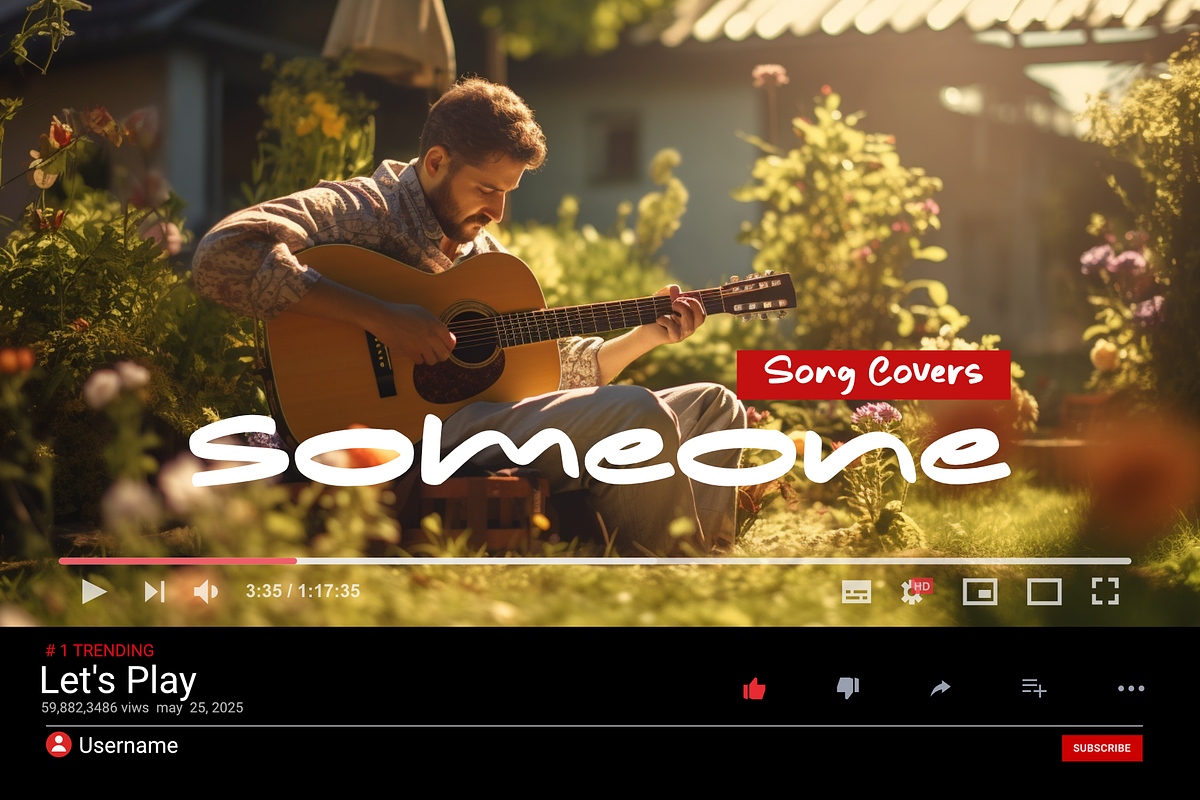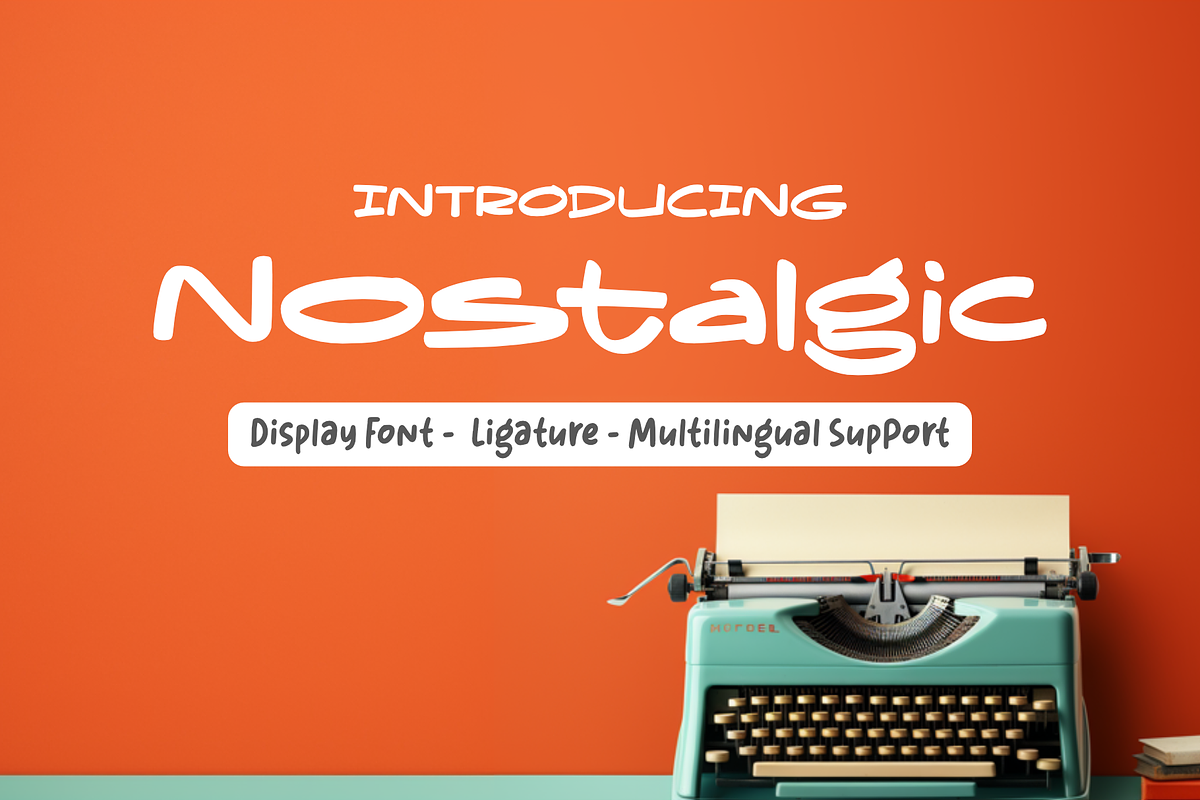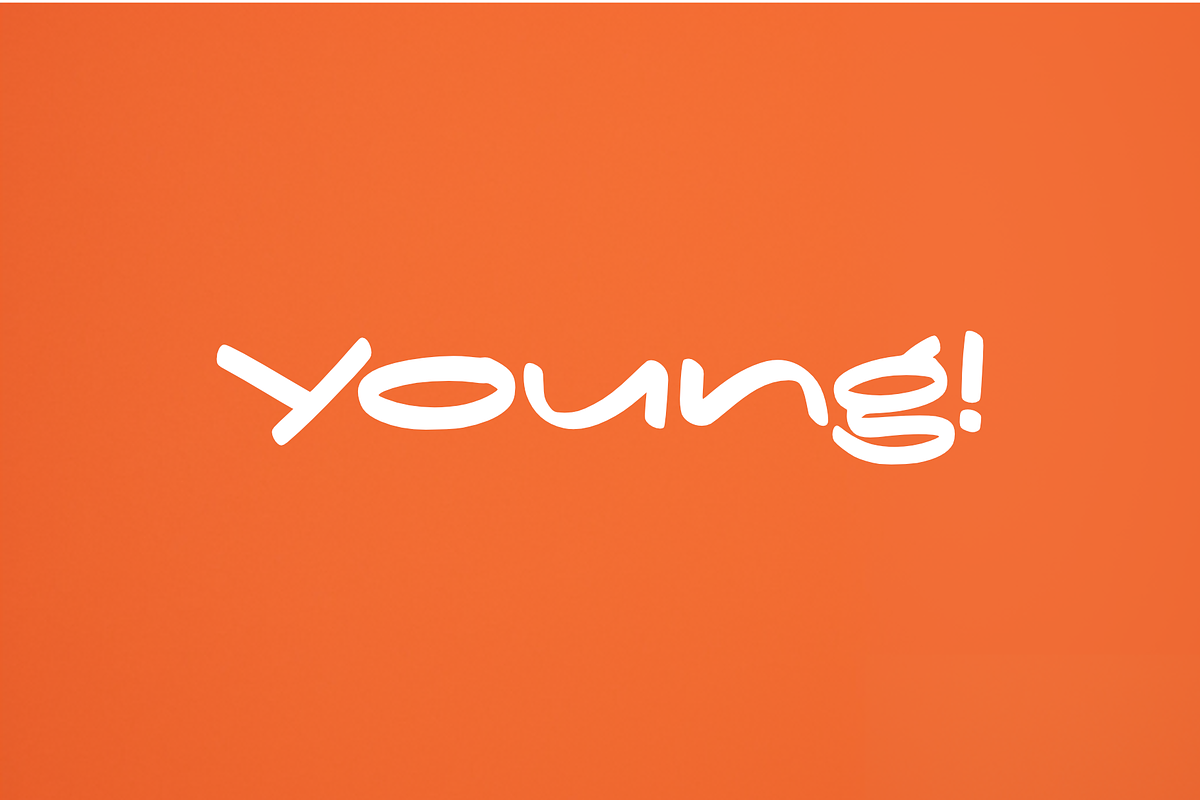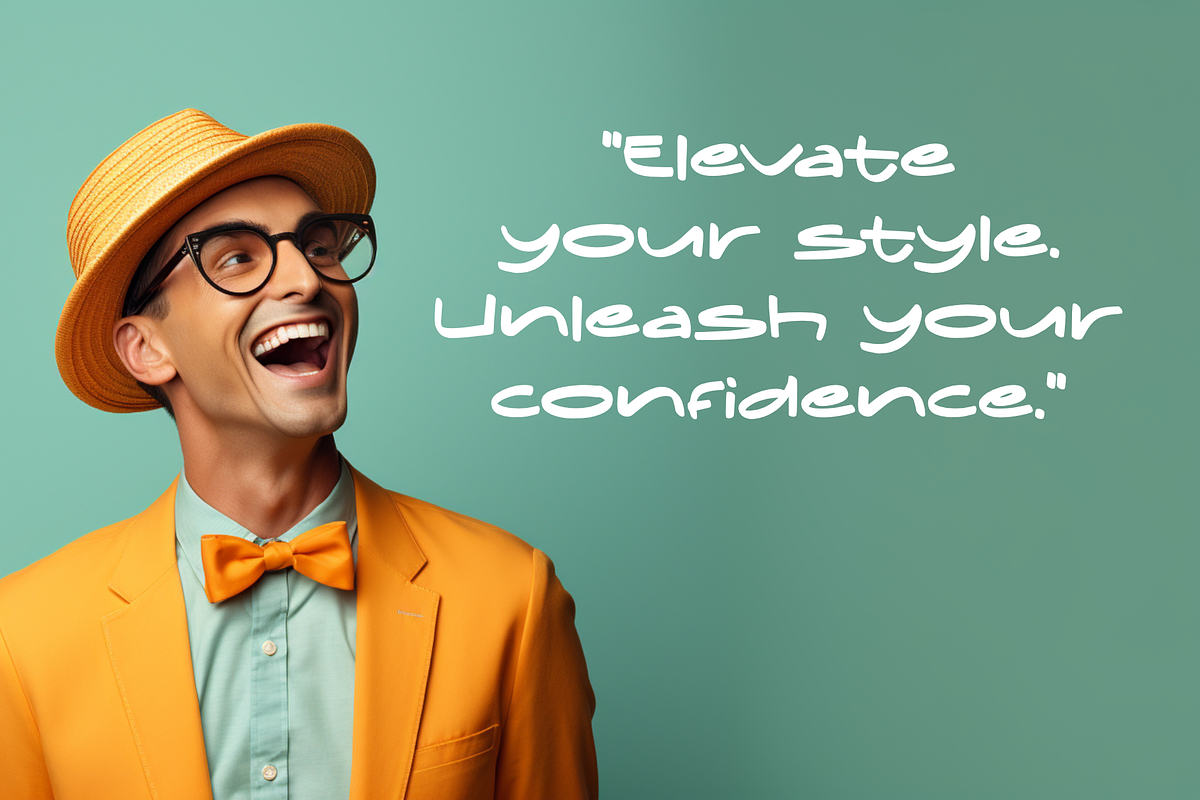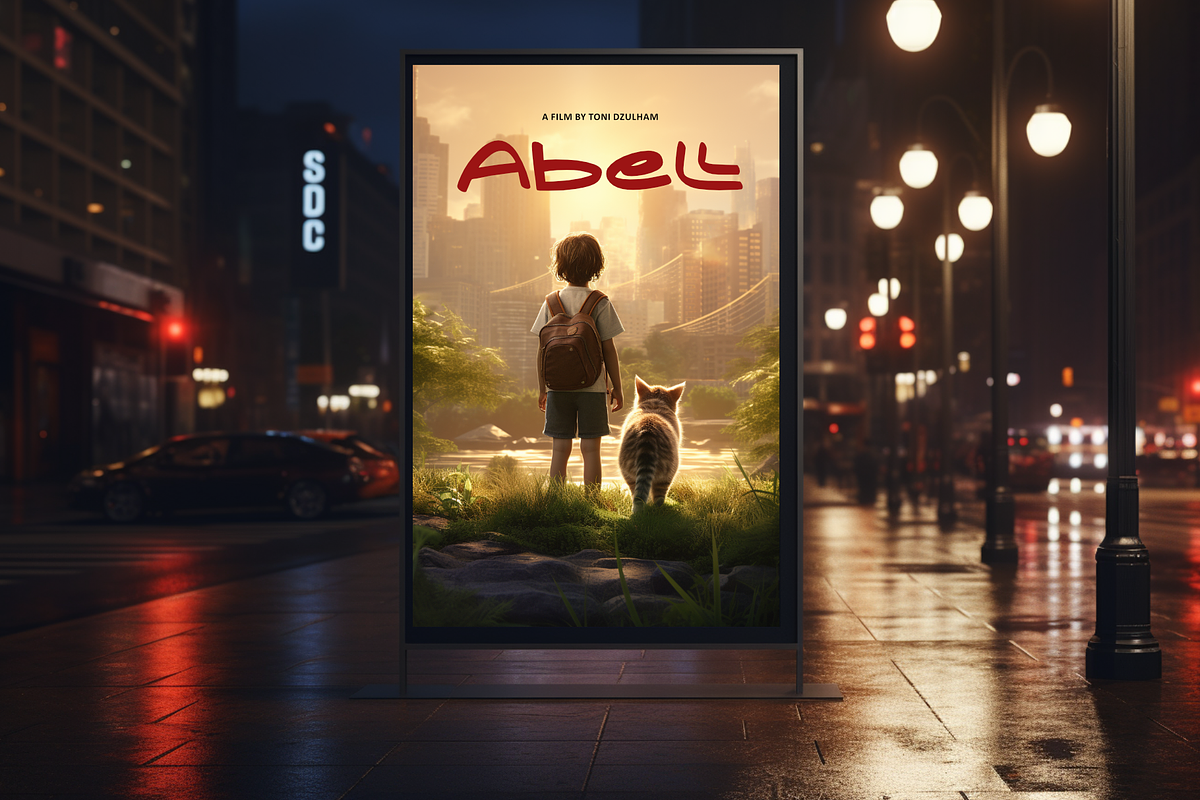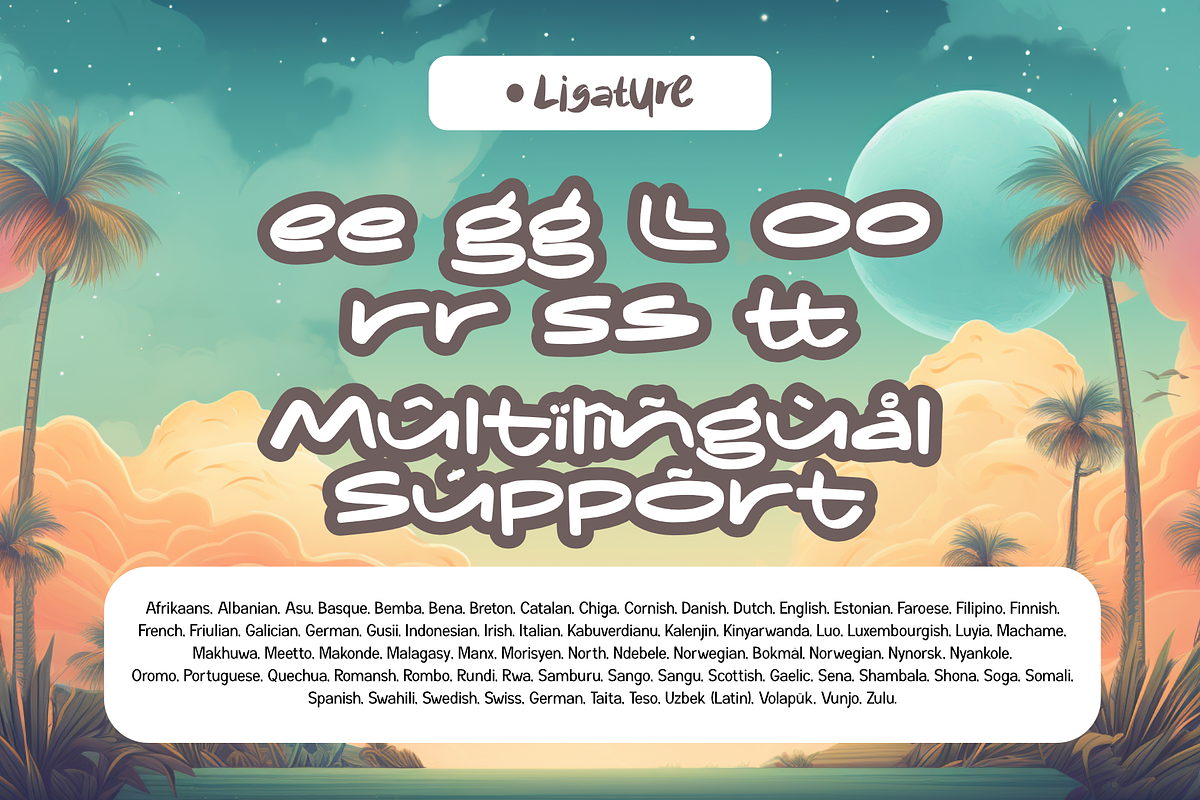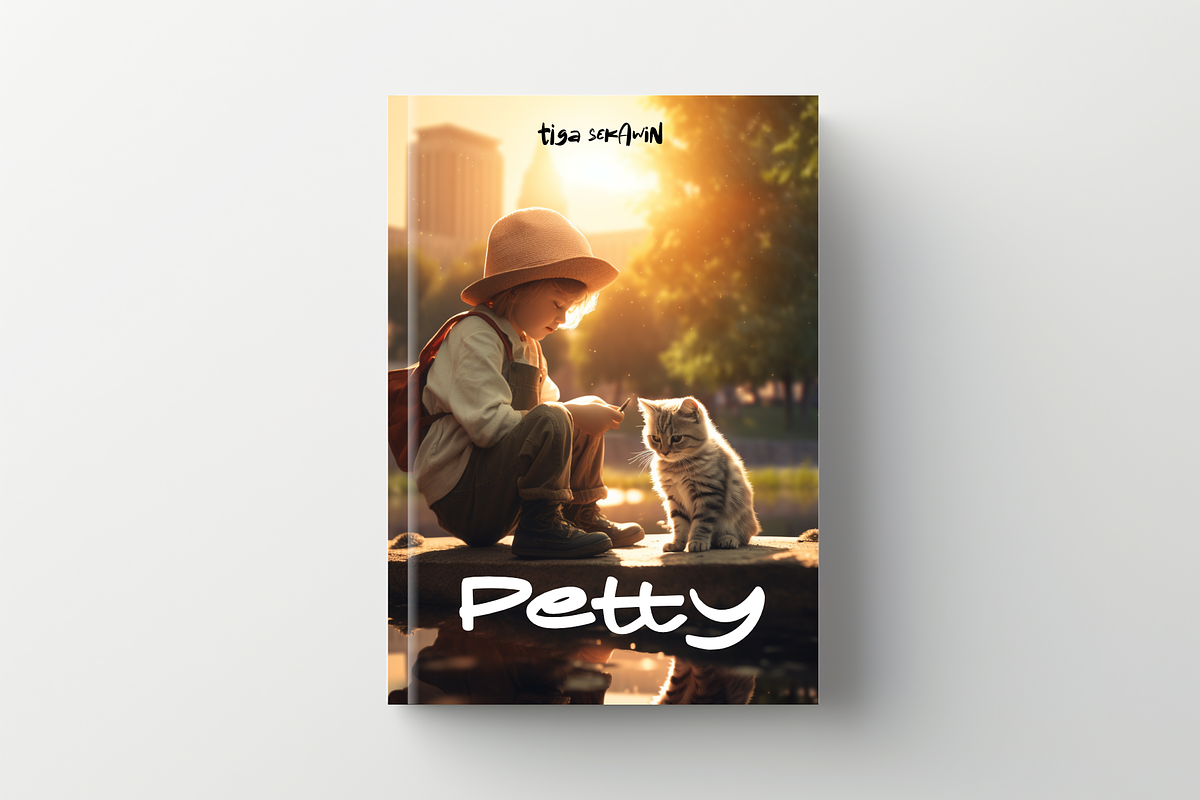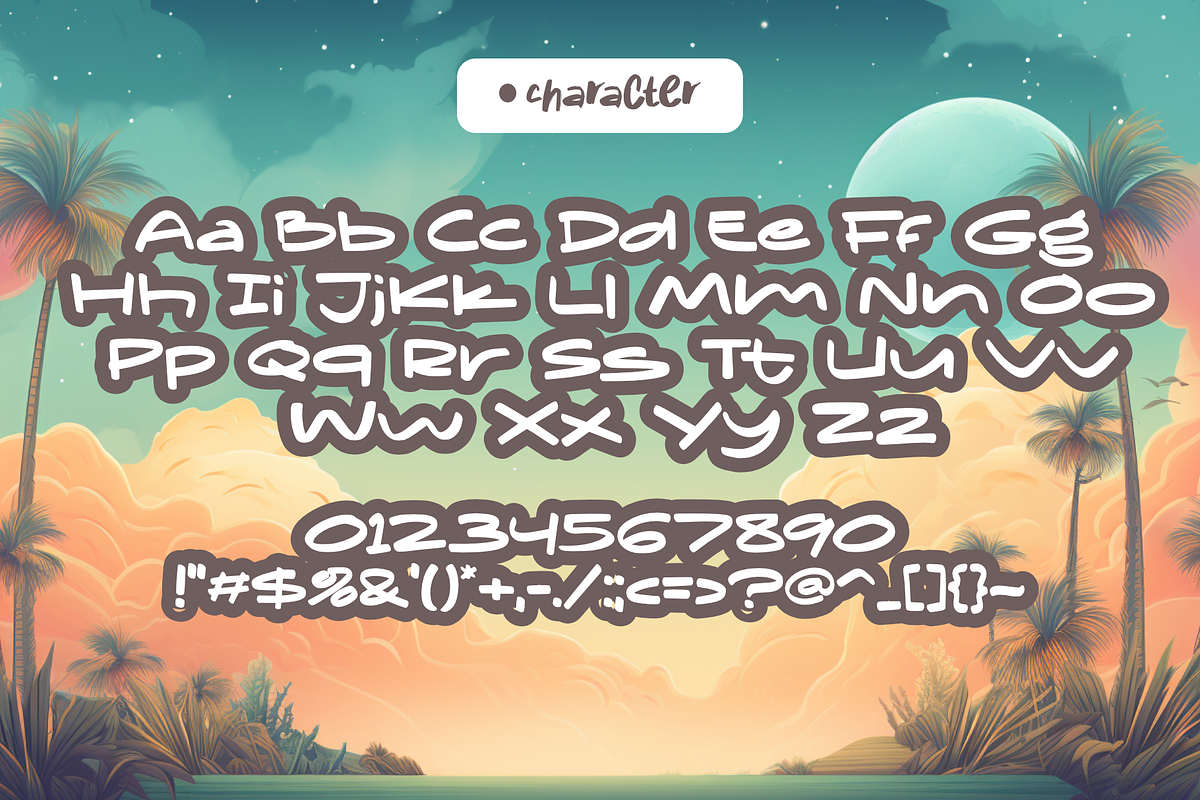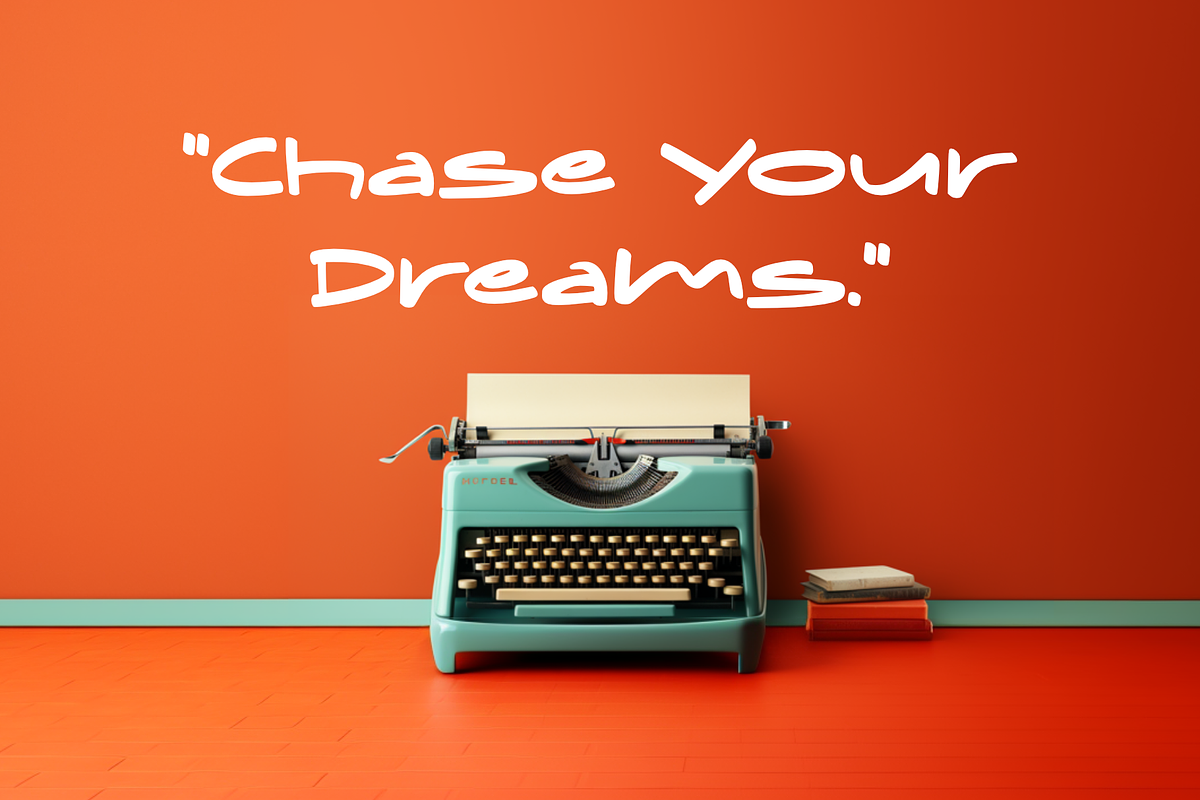
Nostalgic - Display
Nostalgic Font: Embark on a typographic journey with Nostalgic, a font that embraces a unique sideways vertical design. Its letters elegantly stretch horizontally, evoking a sense of graceful elongation. Nostalgic Font brings a touch of vintage charm to your designs, capturing the essence of timeless elegance. Let each character stand tall, reaching out to the side, as if whispering stories of the past. Elevate your projects with the distinct and mesmerizing allure of Nostalgic Font.
- Multilingual Accent